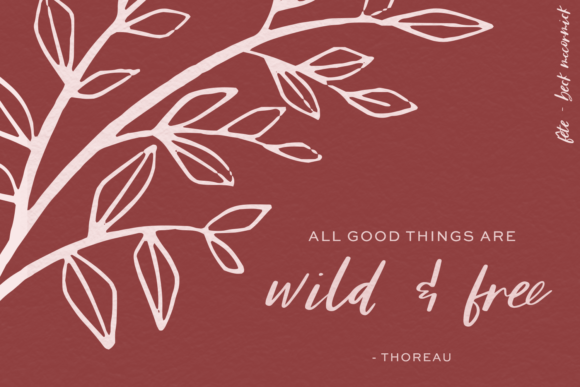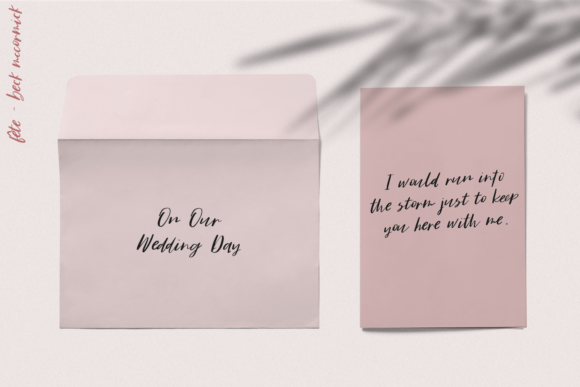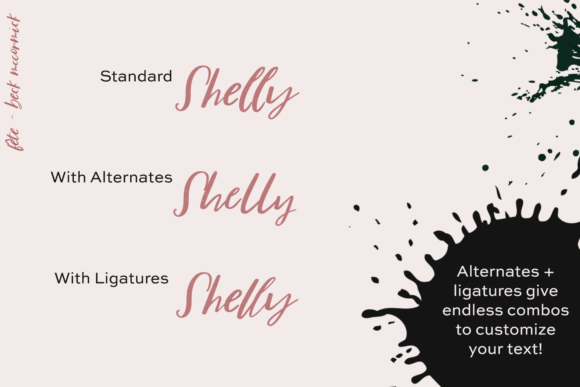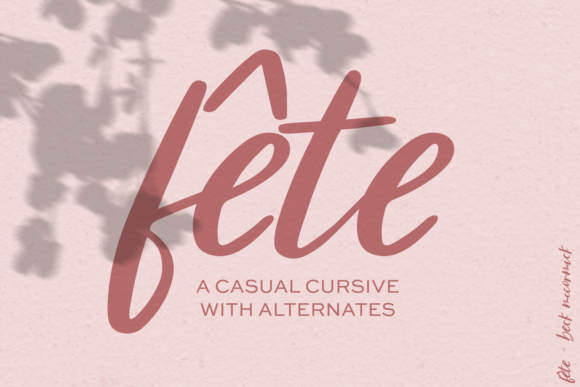
Freebie Wednesday: Fête Script Font
Fête Script Font is a bold script font and it’s free at Creative Fabrica for another 4 days so you better hurry. Don’t miss out!